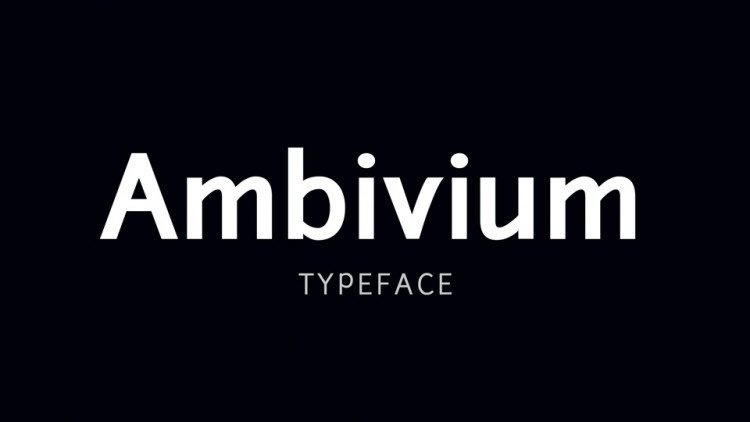
Ambivium Font
Ambivium Font is a modification of the nice Junction font, designed by Caroline Hadilaksono of The League of Moveable Type.
All glyphs in the Light, Regular and Bold weigths have been ‘cleaned-up’, by: adding missing extrema, correcting self-intersecting paths, rounding non-integral point coordinates.
Text (‘old-style’) numerals of the standard Junction fonts have been restored into the web fonts and made the default in all fonts.